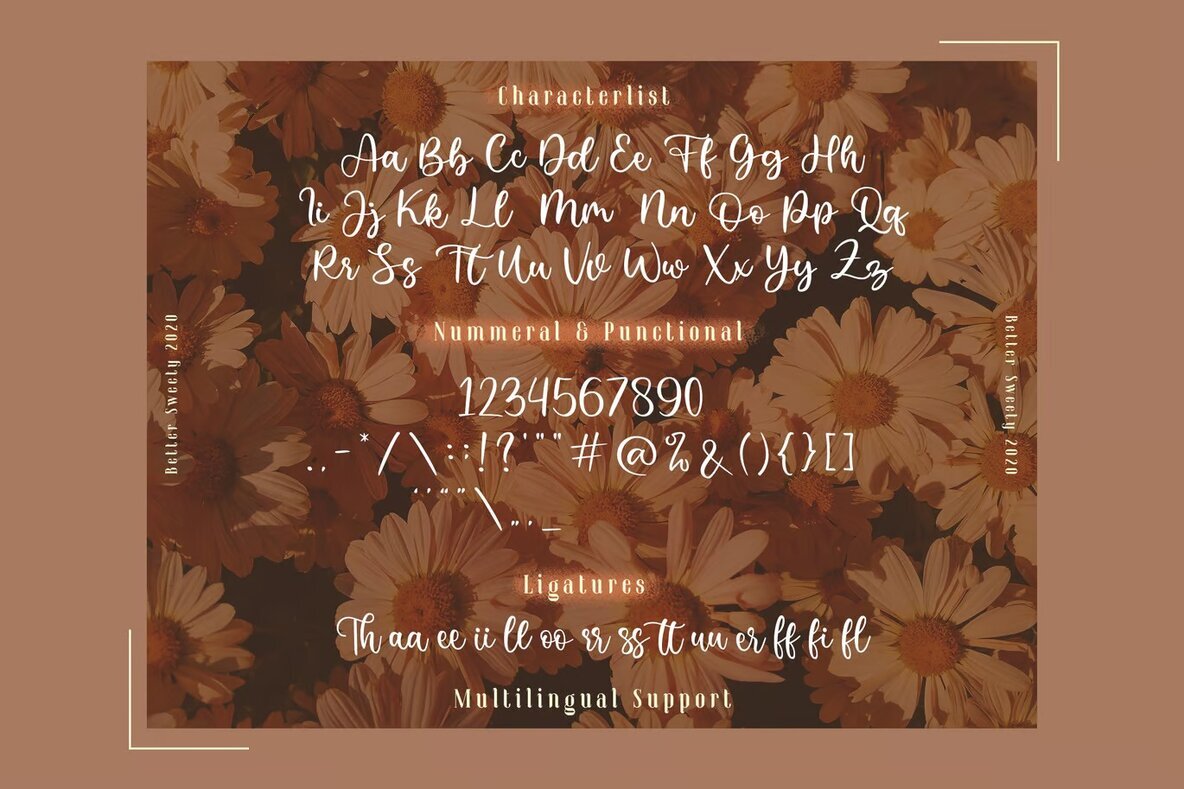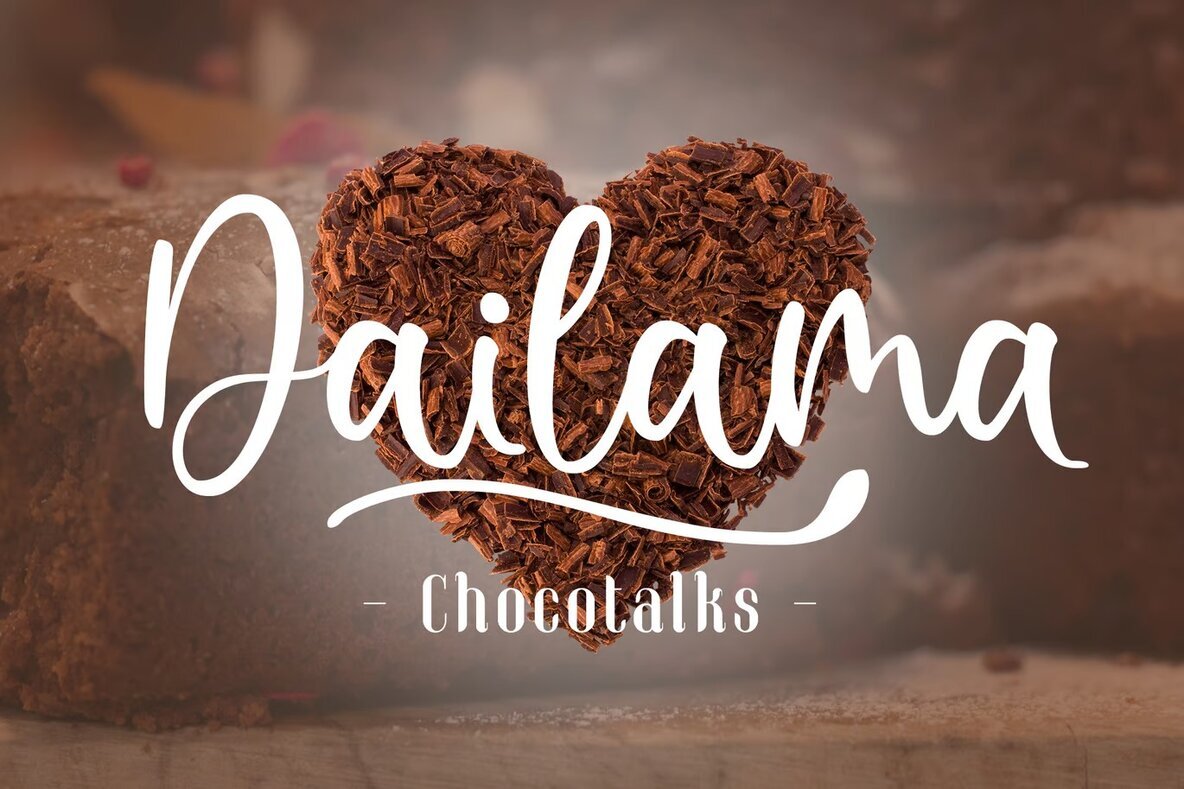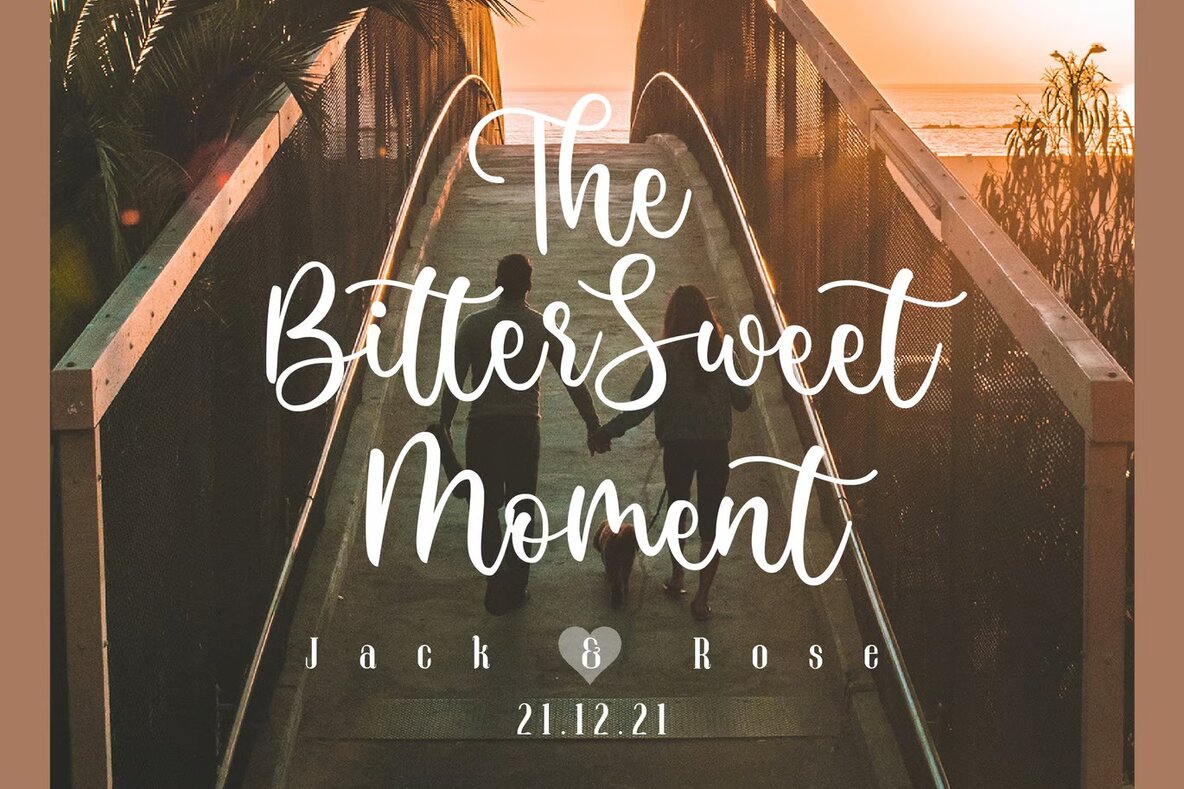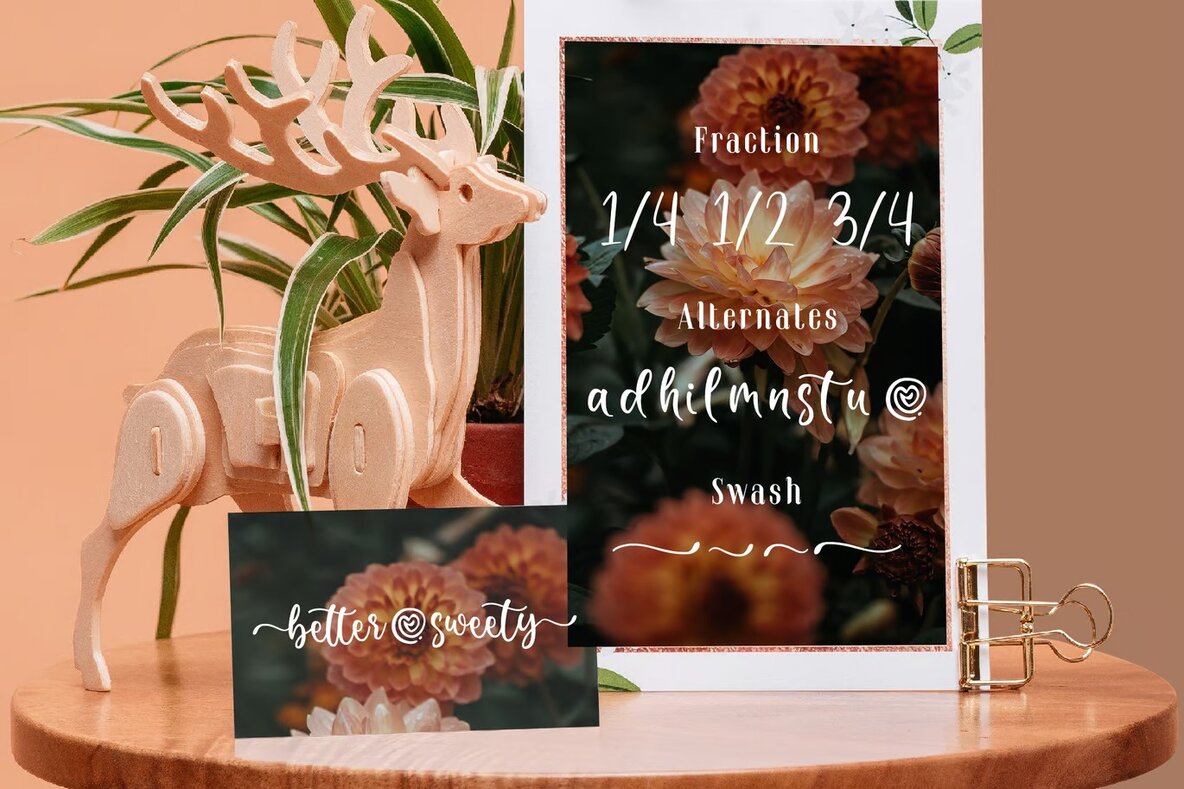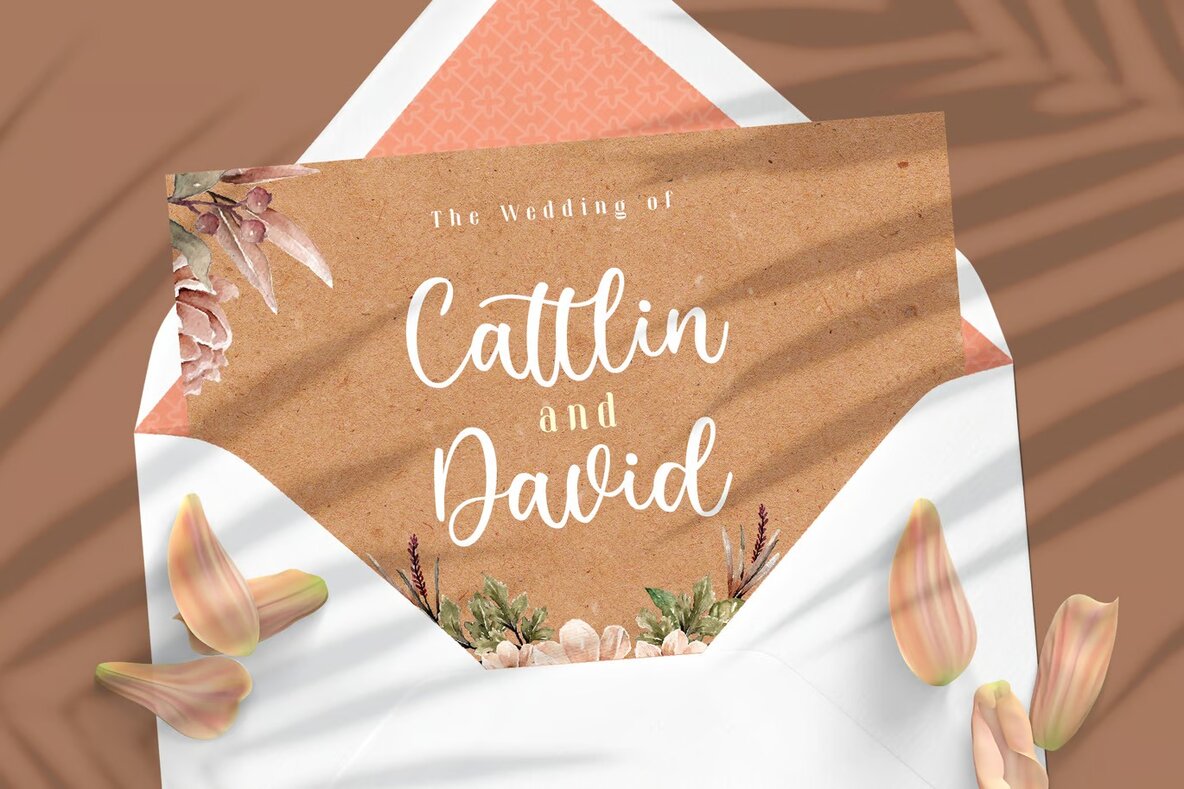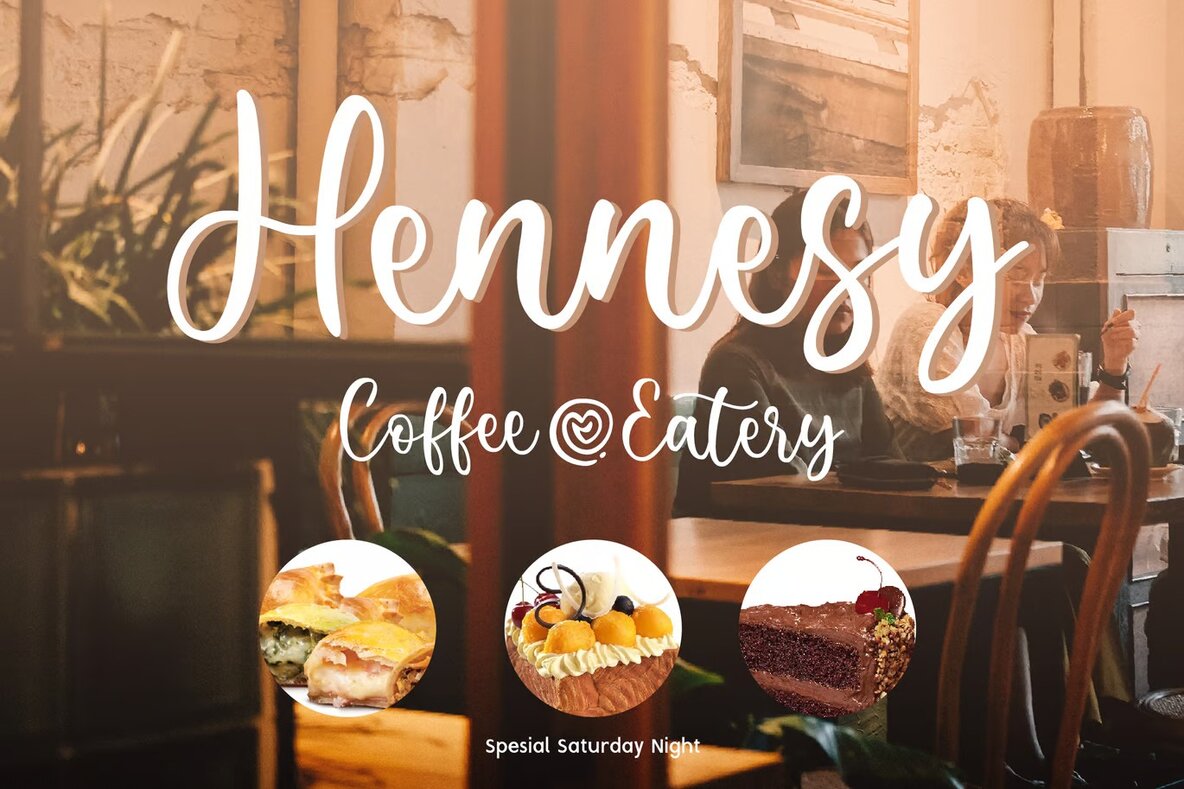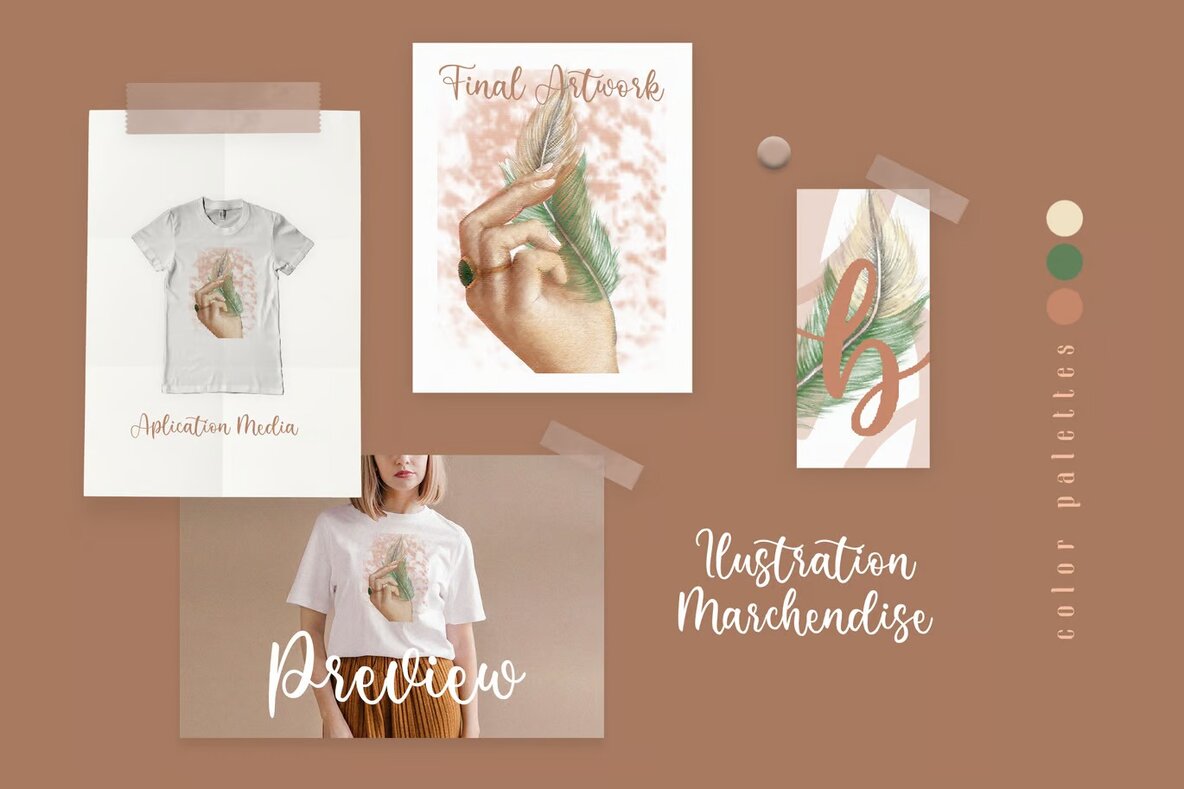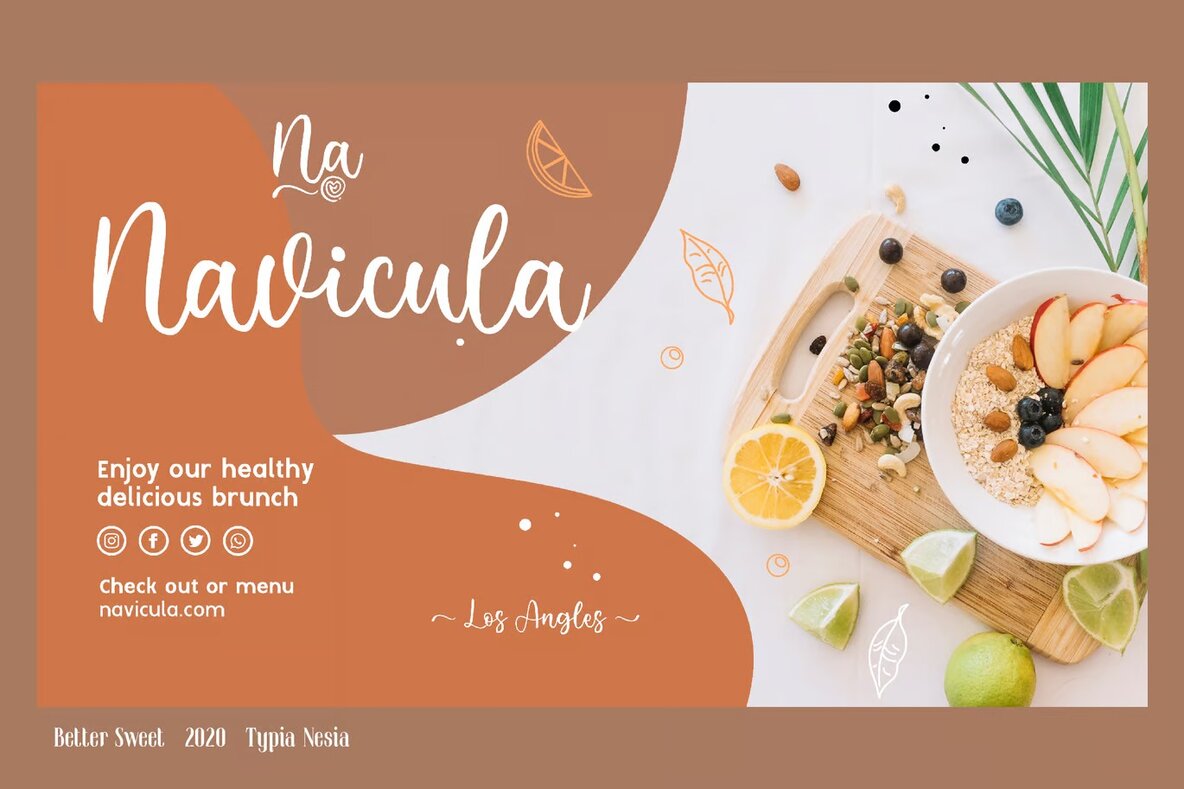
Better Sweety Font
Better Sweety is a modern brush calligraphy script font that offers an easy, flowing style ideal for a variety of creative projects. Its elegant script features include ligatures and swashes, providing versatility and a touch of sophistication to your wedding designs, branding materials, social media graphics, and more.
With its smooth, graceful lines, Better Sweety excels in creating inviting and visually appealing invitations and greeting cards. The font’s unique design elements allow you to craft personalized calligraphy compositions effortlessly. Combine its stylish components to add a sense of charm and elegance to your work, making it an excellent choice for any creative endeavor.